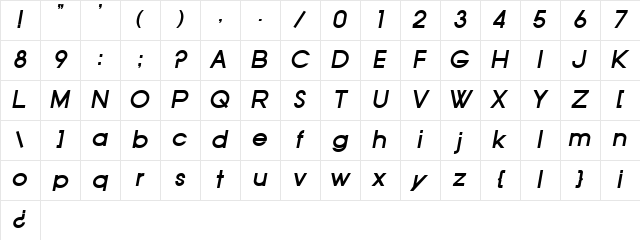
SF Old Republic Bold Italic Free Font
SF Old Republic Bold Italic
Design Context for SF Old Republic
SF Old Republic is a composed and adaptable typeface that performs quietly and consistently across a wide range of design contexts. The slanted form adds forward momentum and visual energy. Its bold stroke weight gives it real presence on the page.
Pro Tip: Use SF Old Republic for emphasis, pull quotes, and subheadings where its slanted energy can add rhythm to the layout.